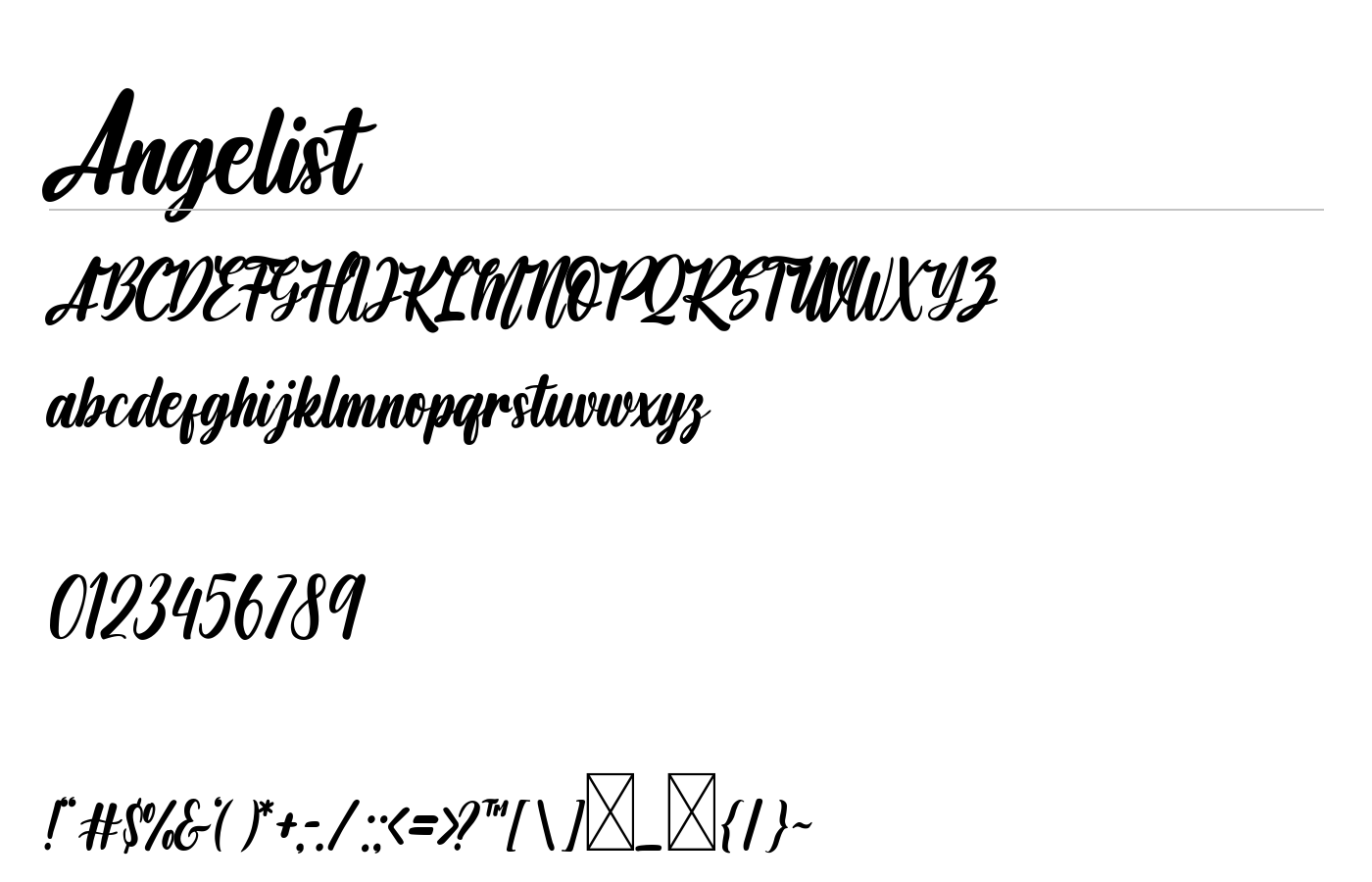
Angelist is a lively script font with a smooth, flowing style that mimics elegant handwriting. It features medium weight strokes with a slight contrast, single-story letterforms, and a natural, casual charm that works beautifully for creative branding, invitations, and personal projects. This font adds a friendly, approachable feel while maintaining a polished and stylish look, making it perfect for logos, headlines, and decorative uses.
Angelist Font
About Angelist Font
| Font family | Angelist Font |
| Designer | Ikrar Bey Khubaib |